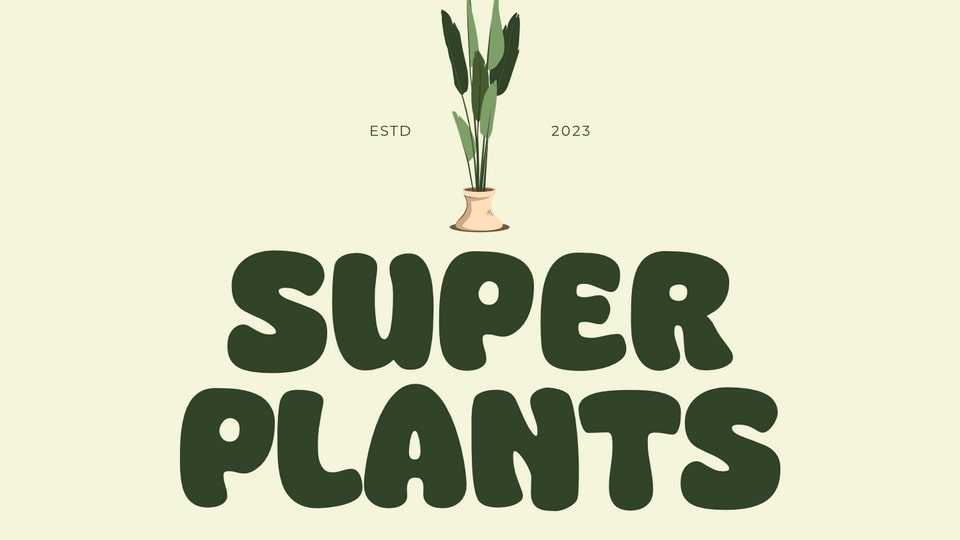
Download Super Plants font, a bold and playful cartoon typeface that radiates joy and cheerfulness with every stroke. Super Plants font is perfect for designs that want to convey a sense of lightheartedness and carefree spirit.